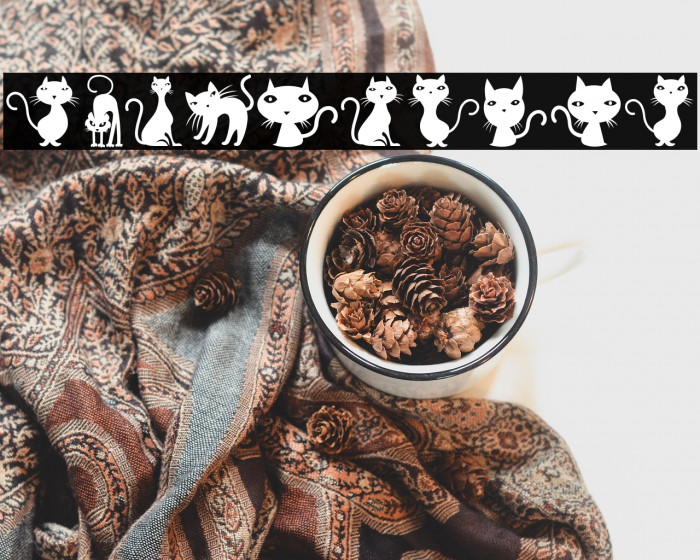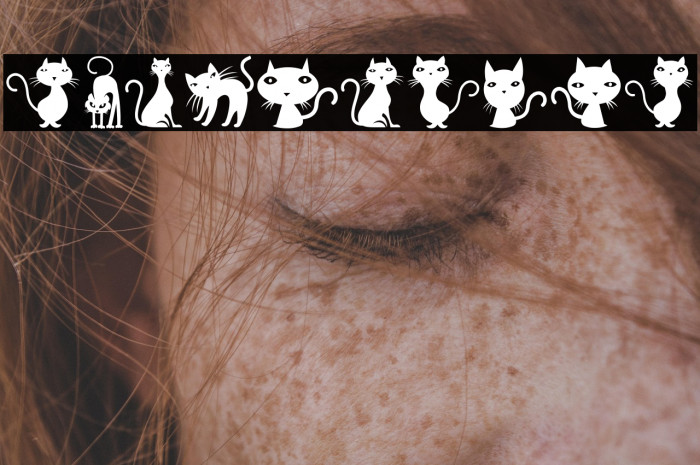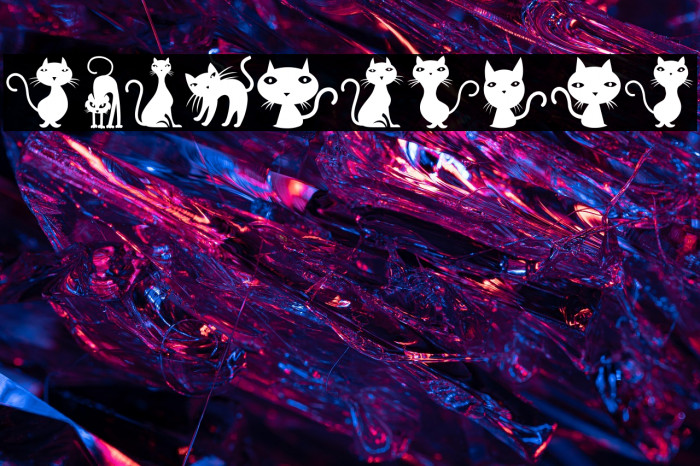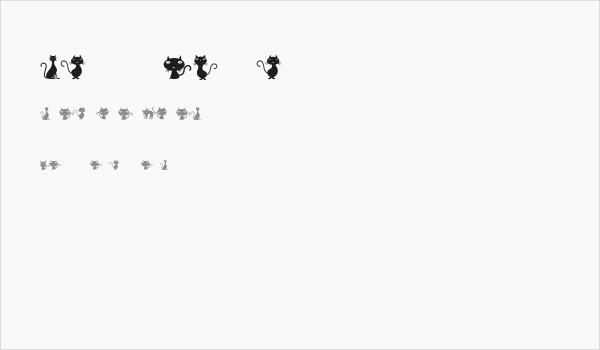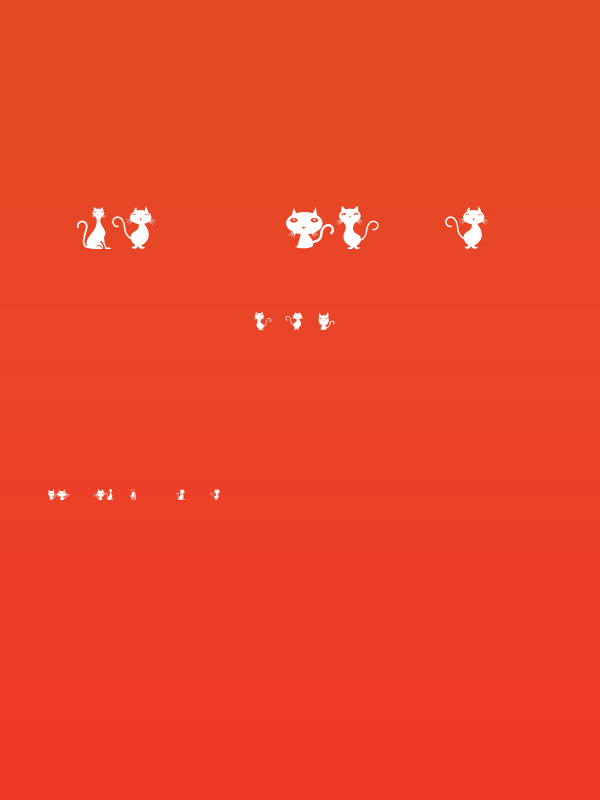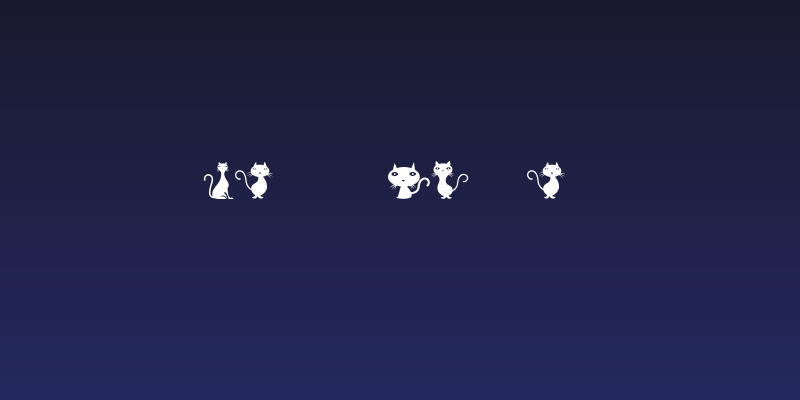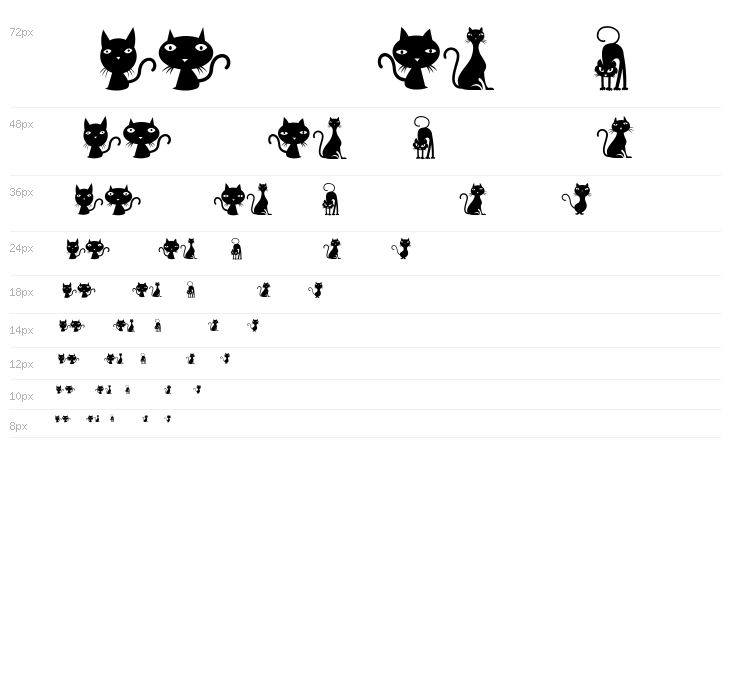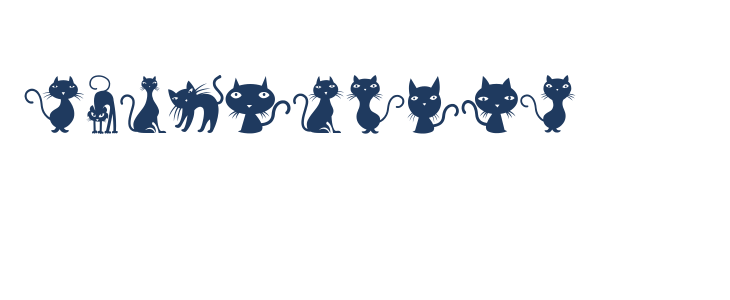
Cats Regular Font
Cats Regular Description
This decorative font features a series of playful cat illustrations, each character represented by a unique cat design. The cats vary in posture and expression, adding a whimsical and charming touch to the font. The style is bold and graphic, with solid black silhouettes that stand out clearly against any background. The characters are evenly spaced, maintaining a consistent visual flow. This font is ideal for projects that require a fun and quirky aesthetic, such as children's books, pet-related branding, or playful event invitations.